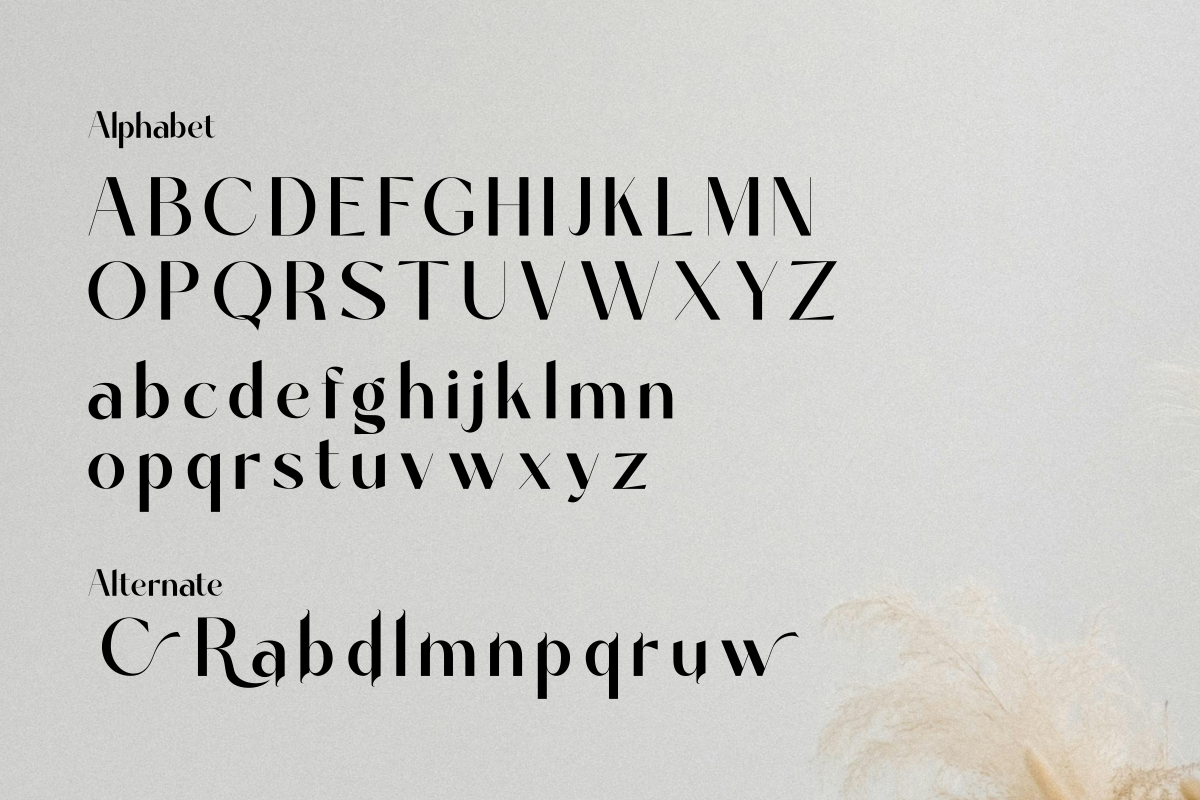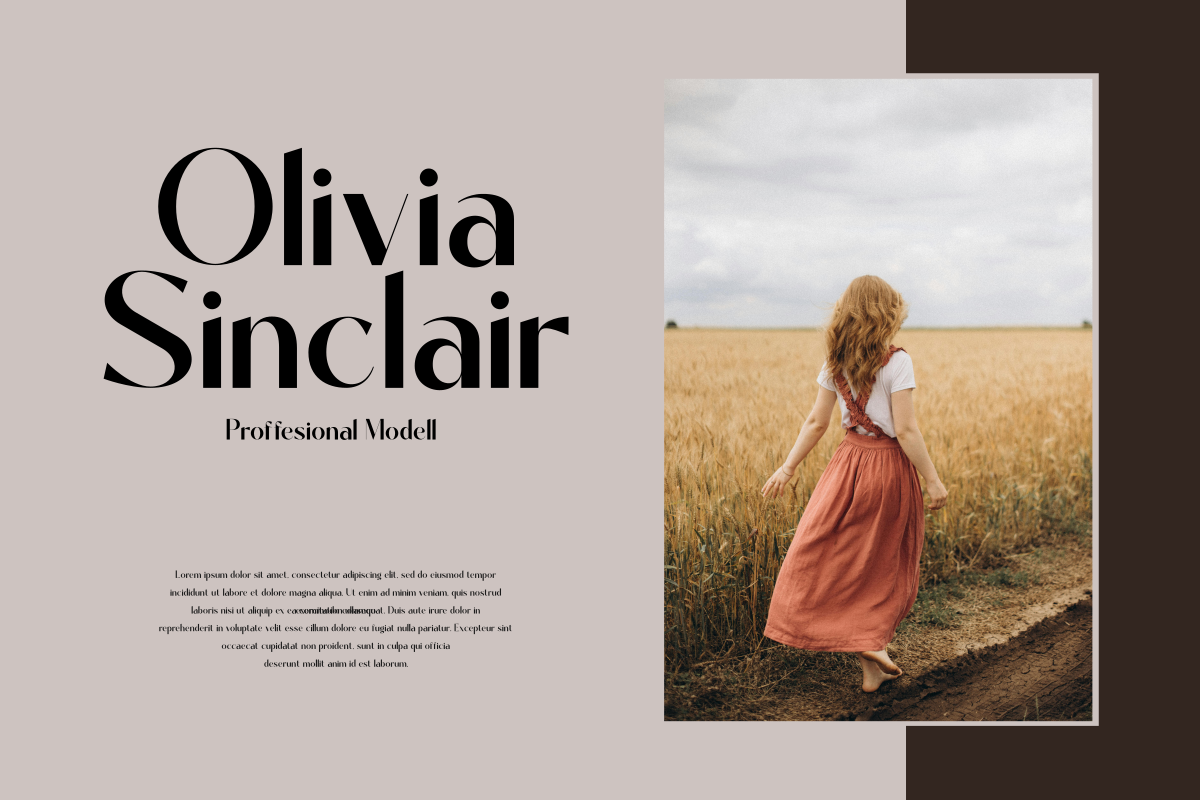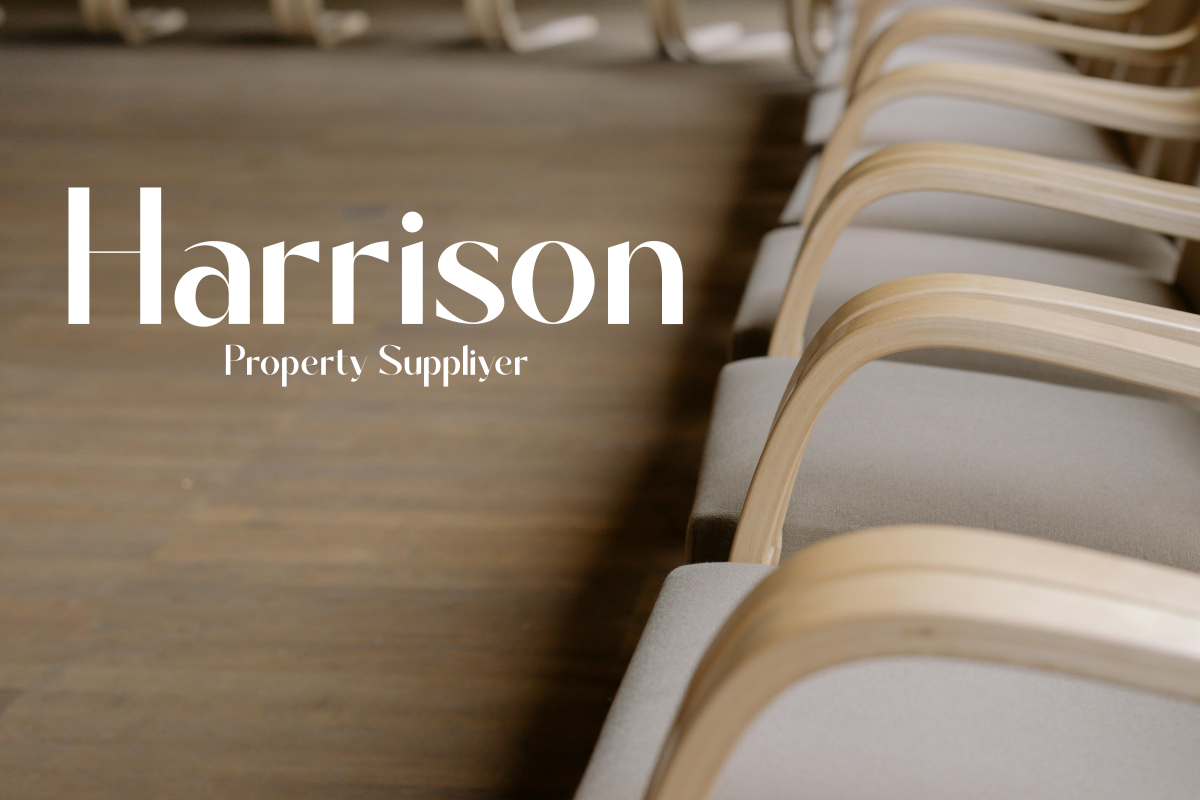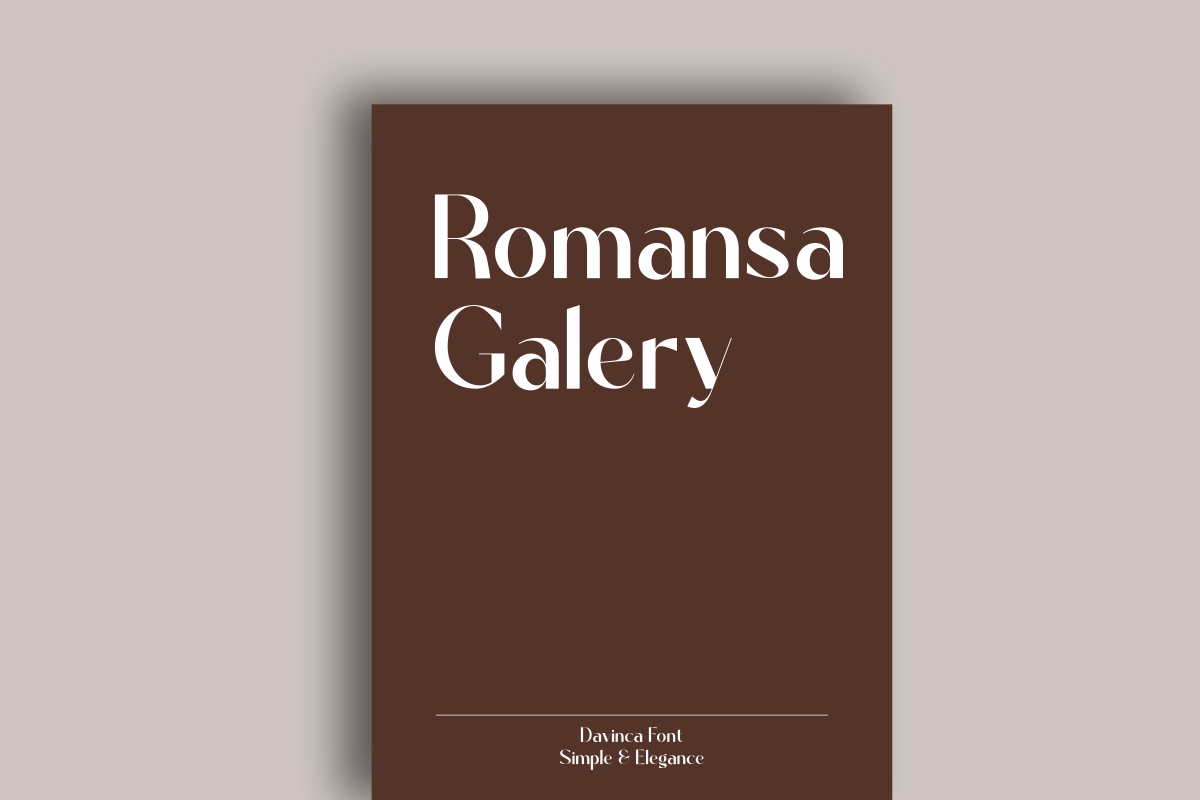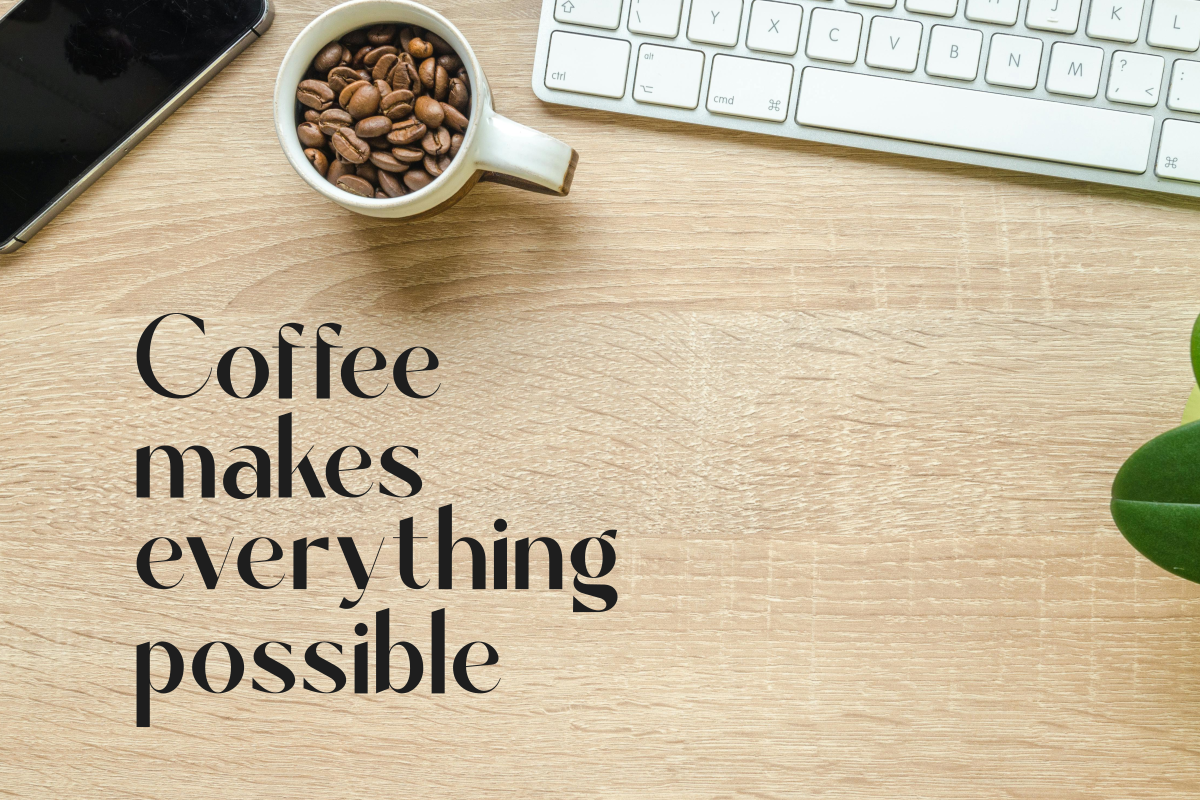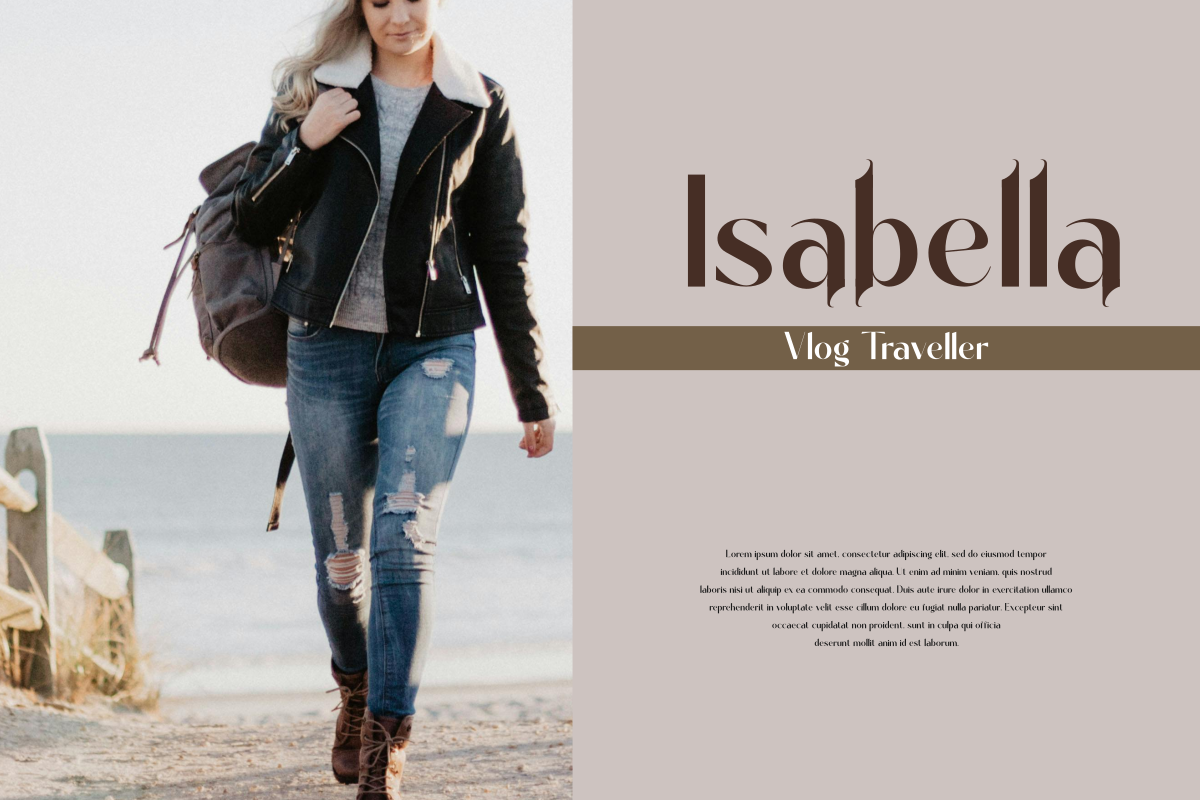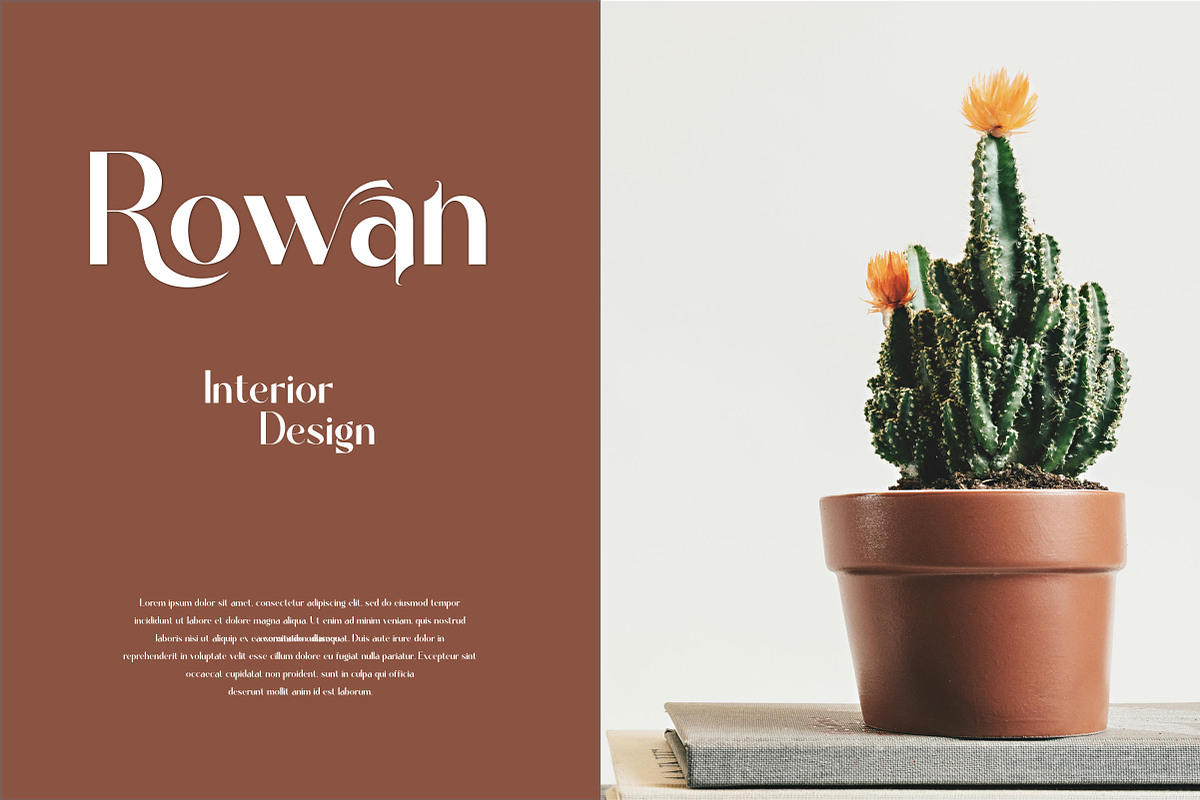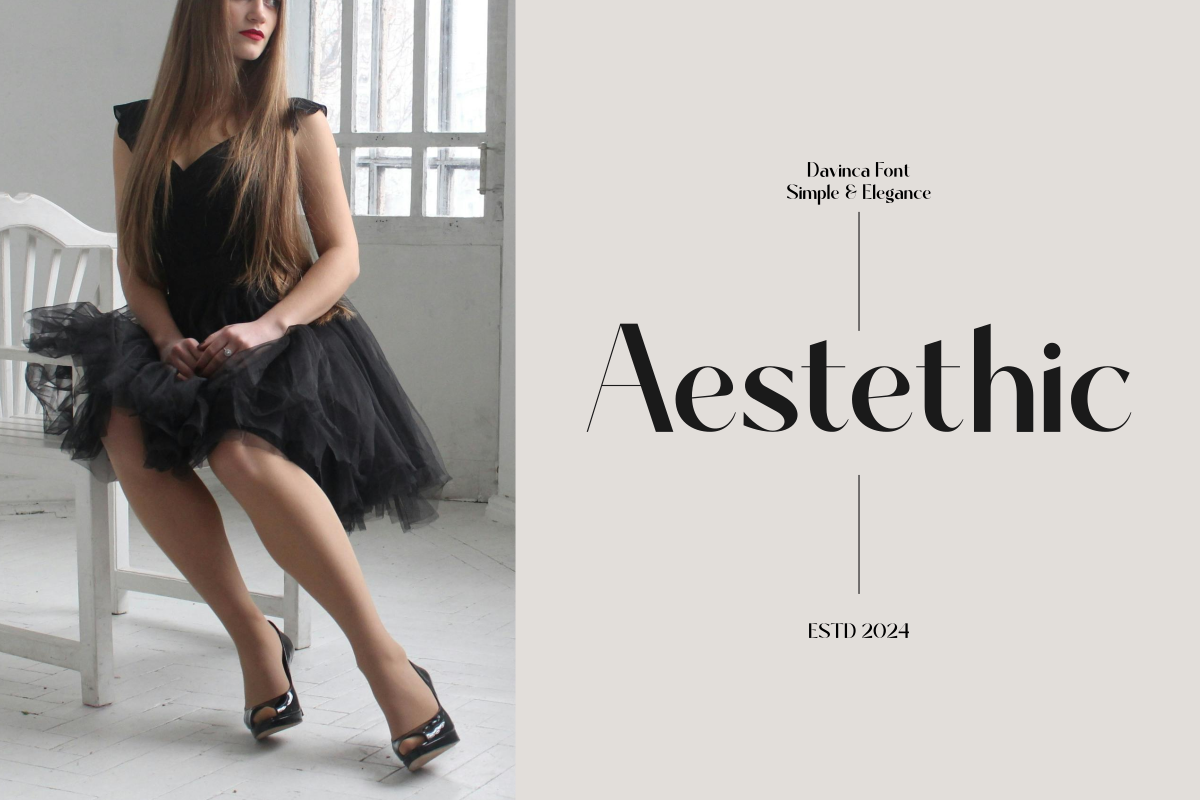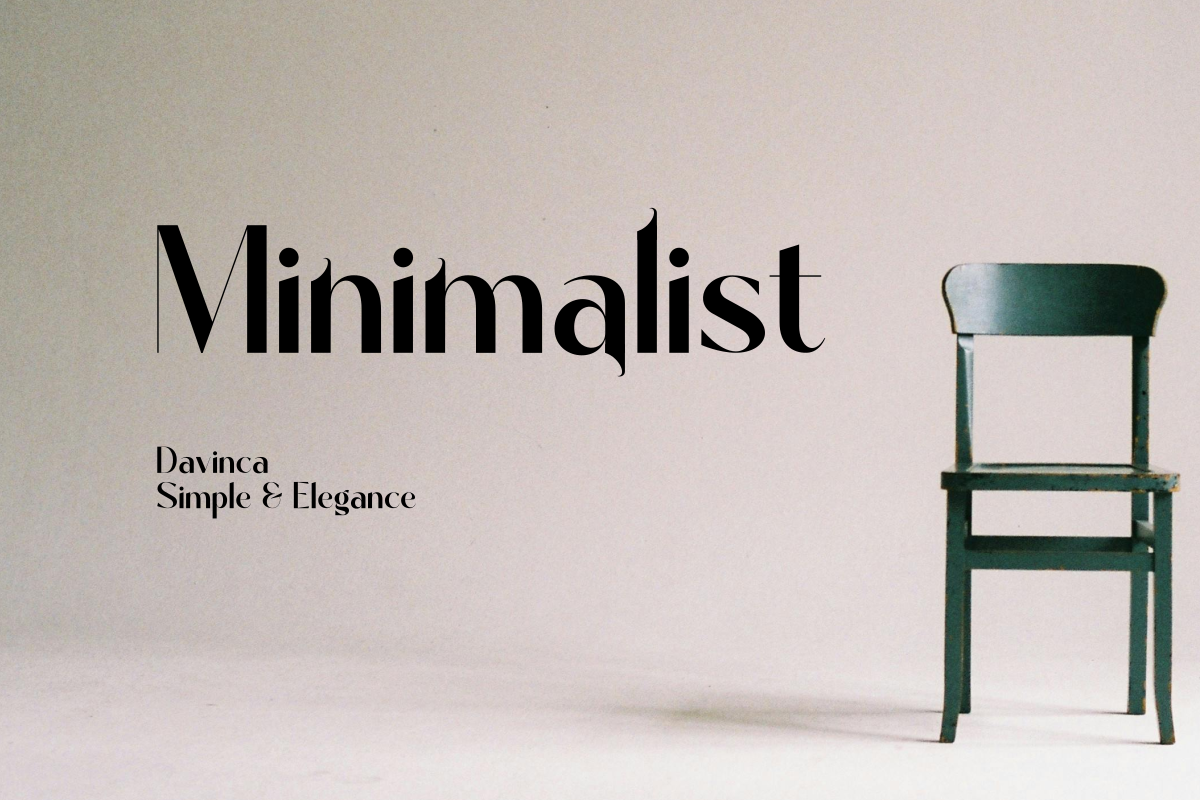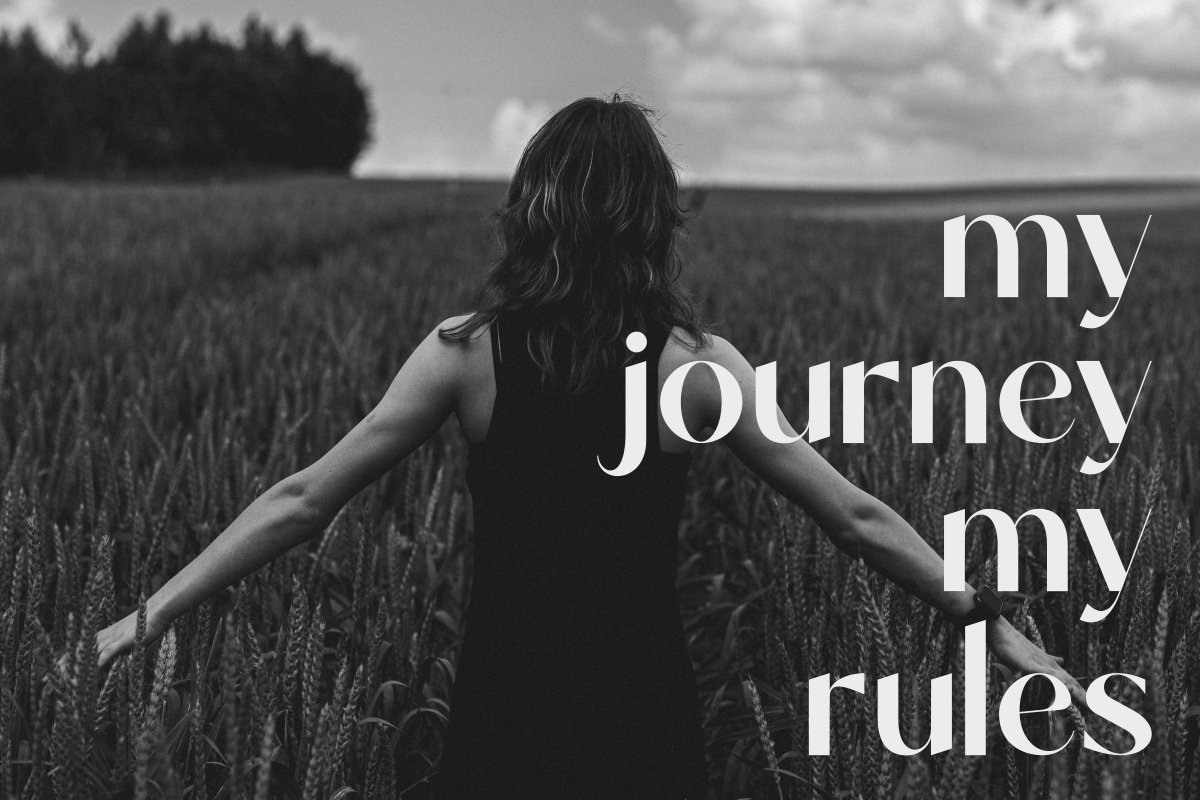
Davinca
Davinca is a sans serif font that combines modern simplicity with a touch of elegance. Designed for a clean and professional look, Davinca is perfect for a wide range of design projects, from branding to editorial work. Each character in Davinca is crafted with attention to proportion and readability, making it an ideal choice for designs that require a balance of style and functionality. With its crisp lines and smooth forms, Davinca brings a contemporary charm to any application.